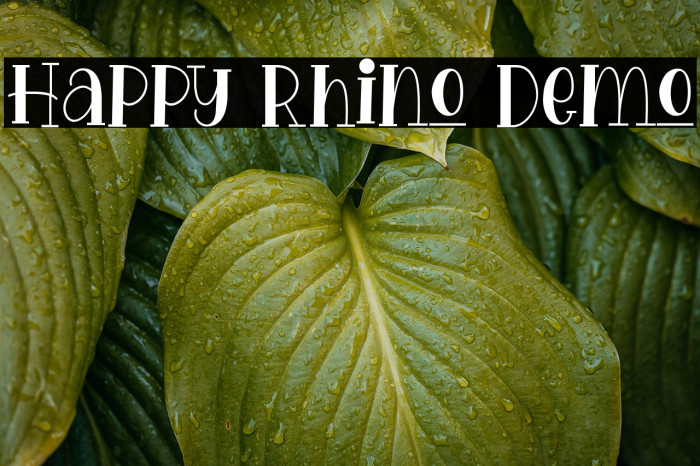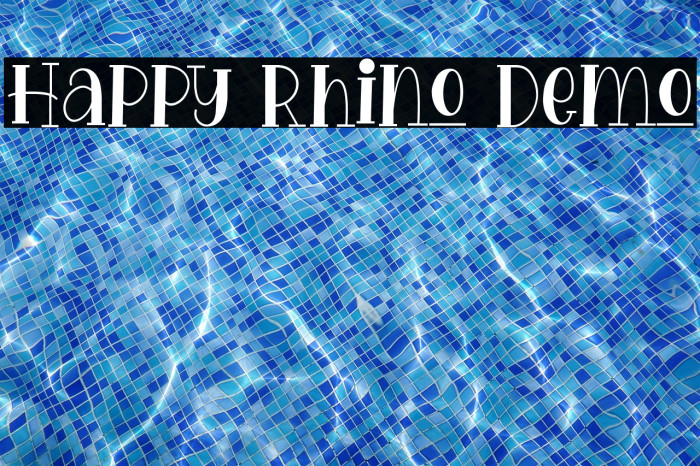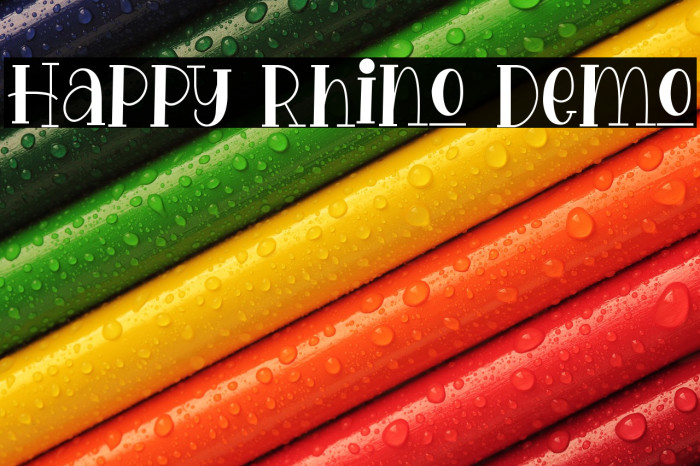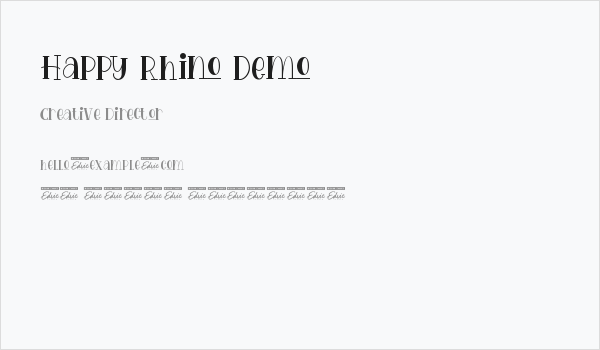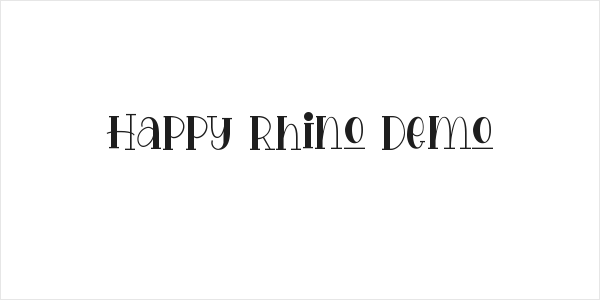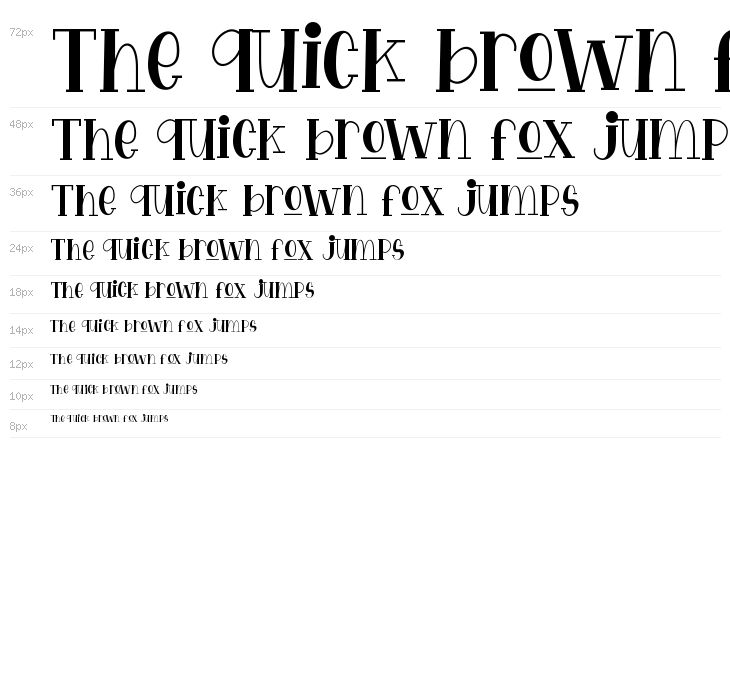
Happy Rhino Demo Font
Happy Rhino Demo Description
This font features a playful and whimsical style with a unique blend of bold and thin strokes. The uppercase letters exhibit a distinct flair with exaggerated serifs and varying stroke widths, creating a dynamic and eye-catching appearance. The lowercase letters maintain this playful aesthetic, with rounded forms and a slightly irregular baseline that adds to its charm. The font's overall design is reminiscent of hand-drawn lettering, giving it a personal and artistic touch. The numerals and special characters are consistent with the font's quirky style, making it suitable for creative and informal applications.
| Overall Style | Playful, Artistic |
| Use Case | Headlines, Logos, Creative Projects |
| Proposed Projects | Ideal for children's books, playful branding, creative posters, and artistic invitations. |